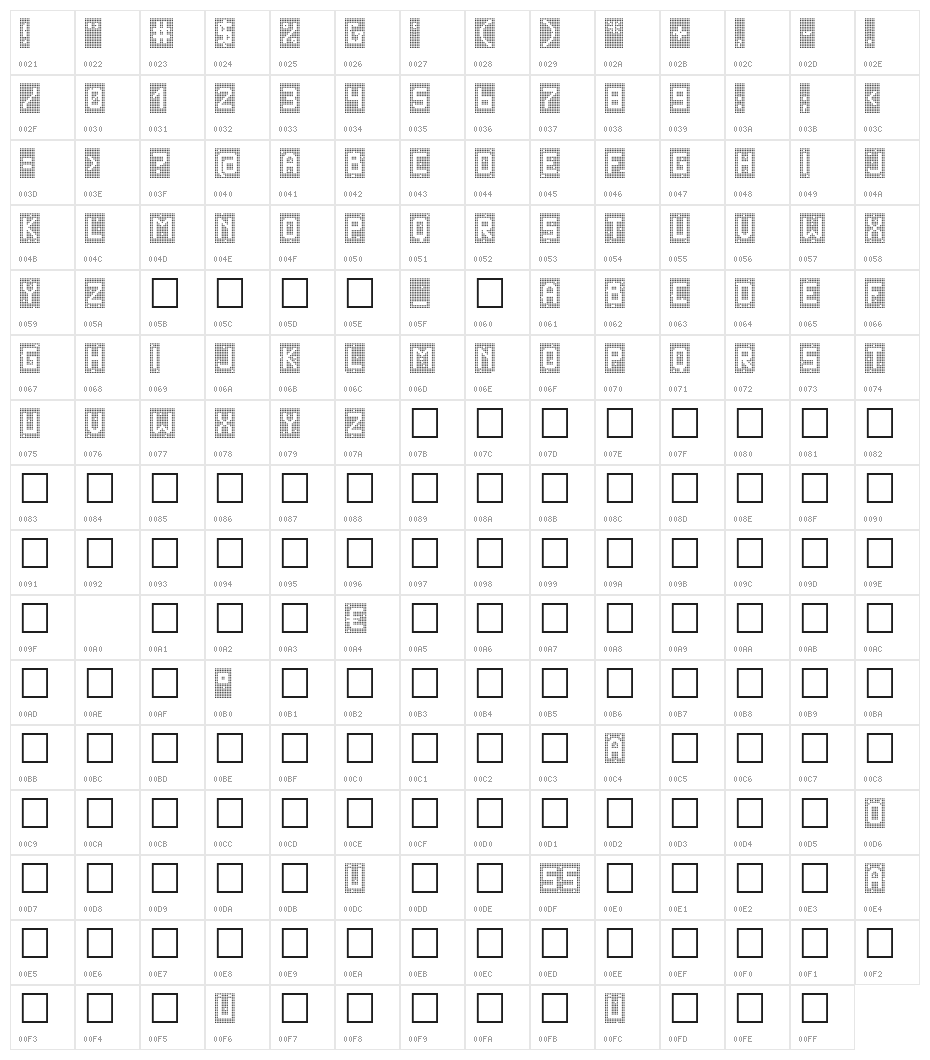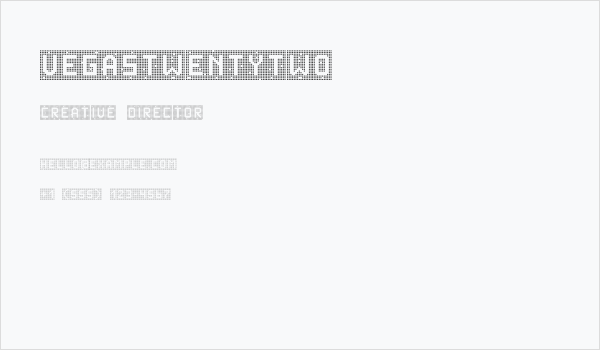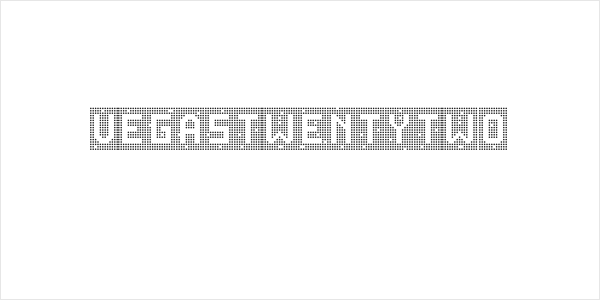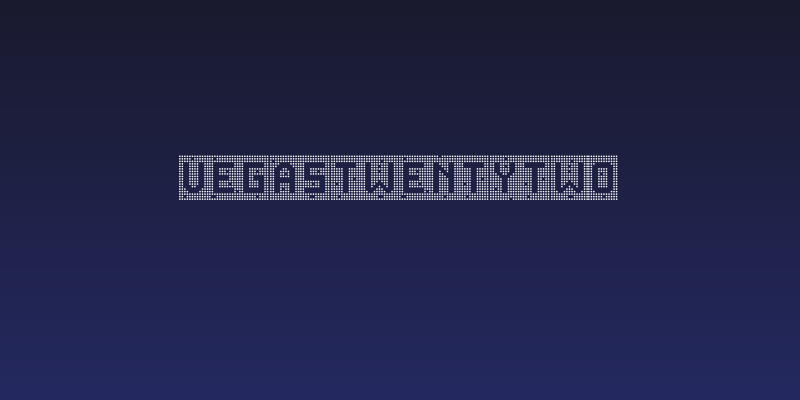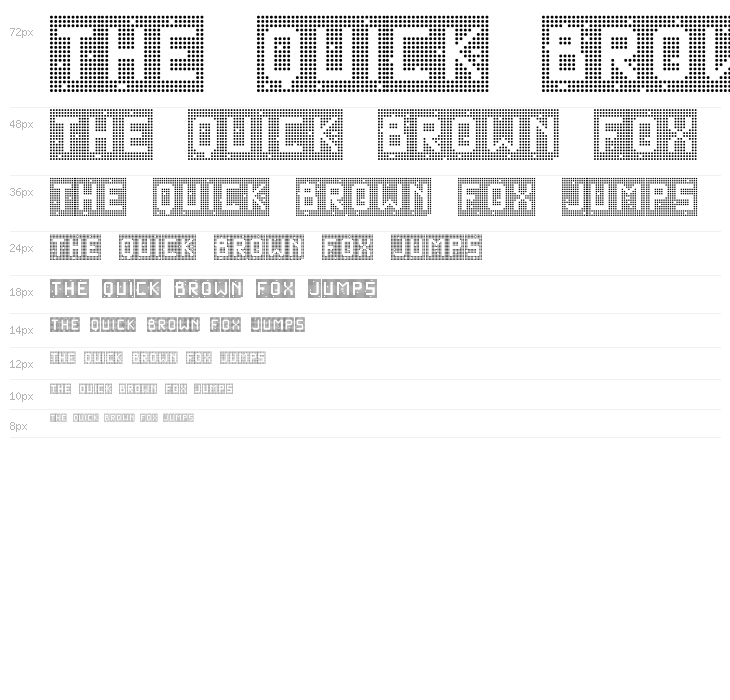
VegasTWENTYTWO Font
VegasTWENTYTWO Description
This font features a unique dot matrix design, reminiscent of vintage digital displays or marquee lights. Each character is constructed from a grid of dots, creating a bold and eye-catching appearance. The geometric structure of the letters and numbers gives it a modern yet retro feel, suitable for projects that require a distinctive and playful aesthetic. The uniformity of the dot pattern across all characters ensures consistency and readability, making it ideal for creative and decorative uses.
| Overall Style | Retro, Modern, Decorative |
| Proposed Projects | Ideal for digital displays, retro-themed designs, signage, posters, and creative branding projects. |